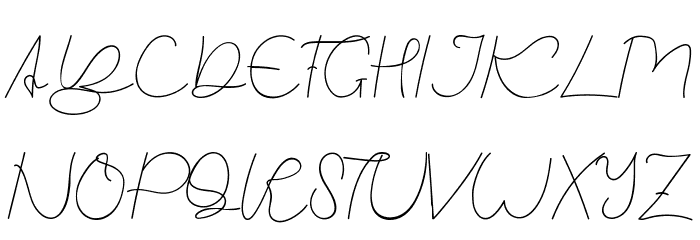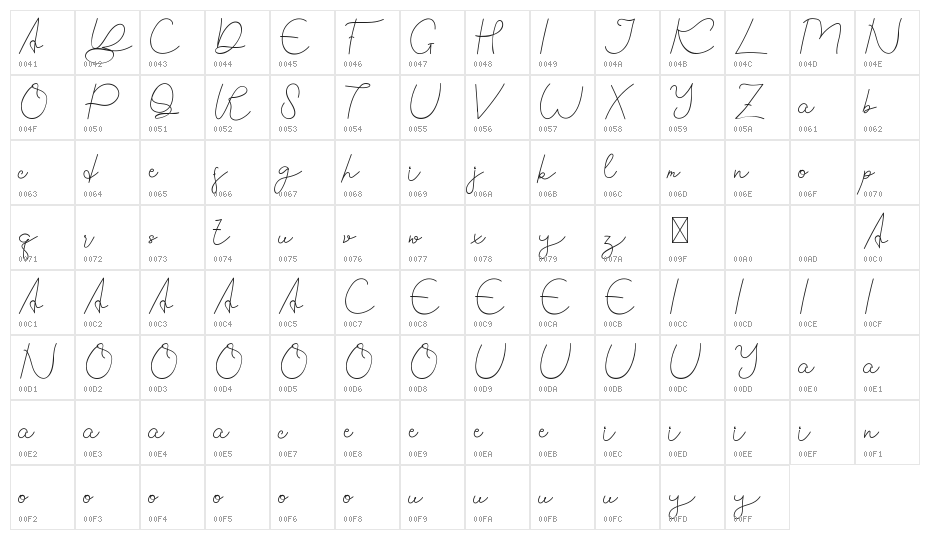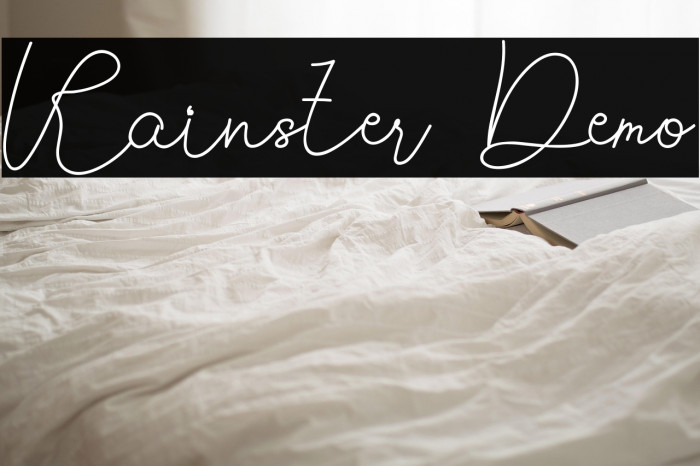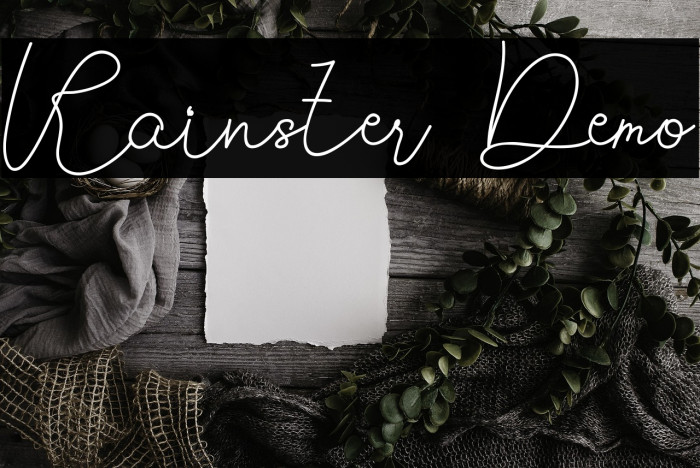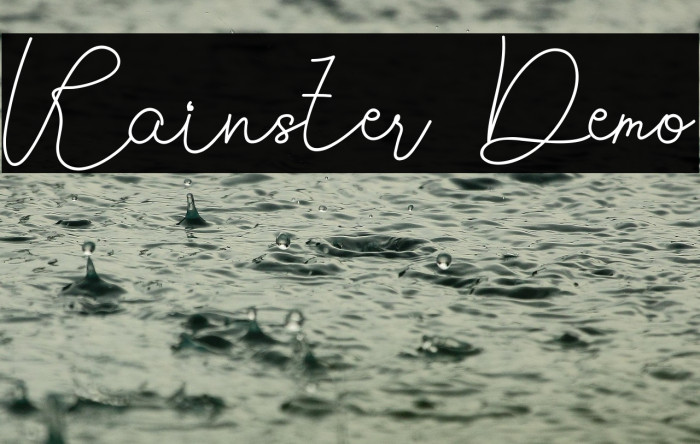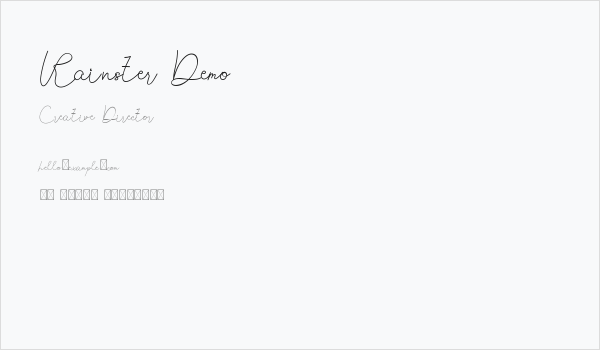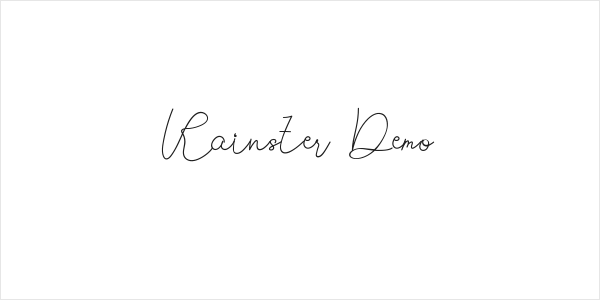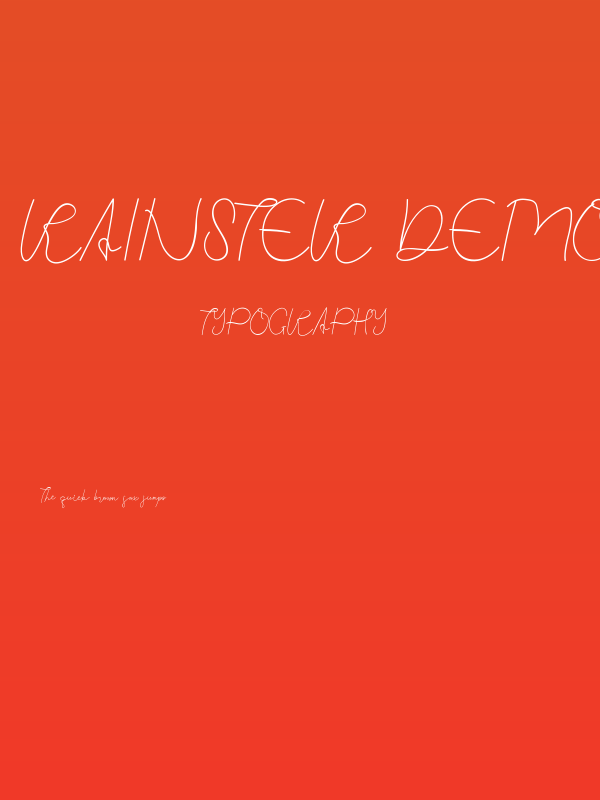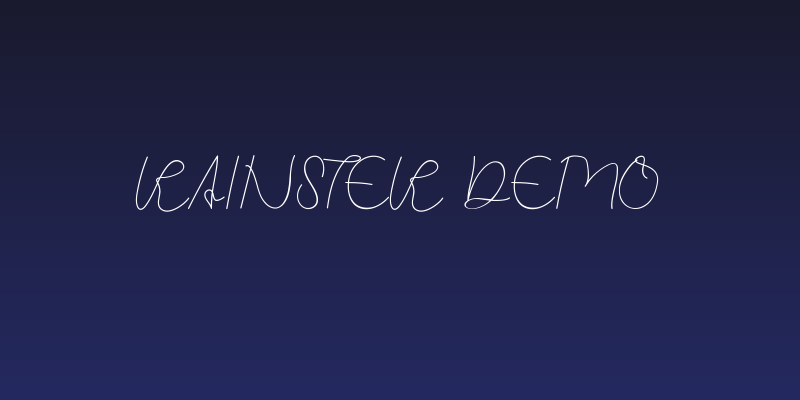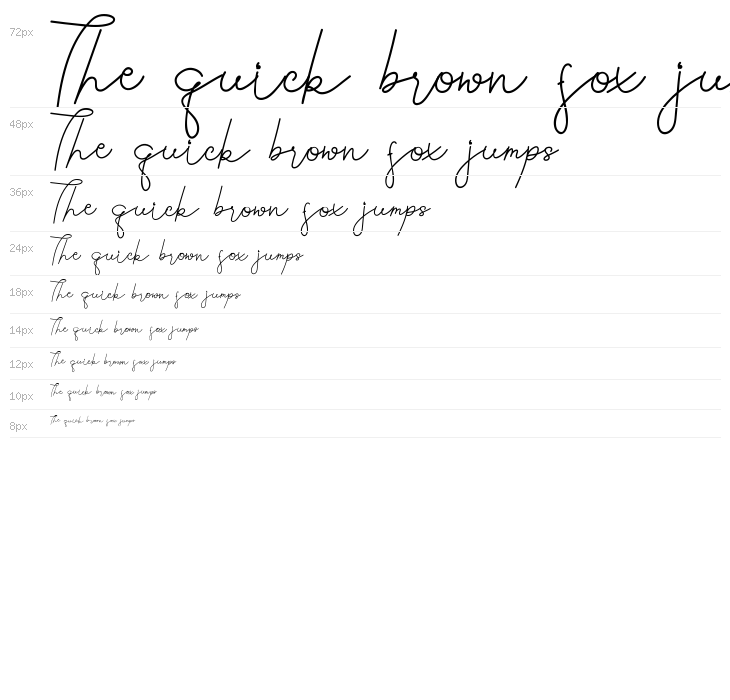
Rainster Demo Font
Rainster Demo Description
This font features an elegant and flowing script style, characterized by its delicate, interconnected letterforms. The uppercase letters exhibit a graceful looped design, while the lowercase letters maintain a consistent fluidity, enhancing the overall aesthetic. The strokes are thin and uniform, contributing to a light and airy appearance. This font's cursive nature is reminiscent of traditional calligraphy, yet it maintains a modern touch with its clean lines and minimalistic approach. The spacing between characters is balanced, ensuring readability while preserving the artistic flair. Its sophisticated style makes it suitable for projects that require a touch of elegance and refinement.